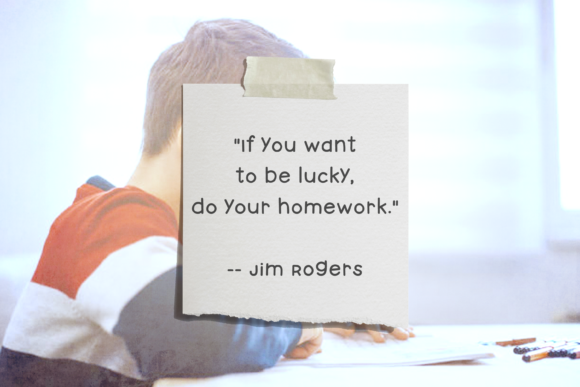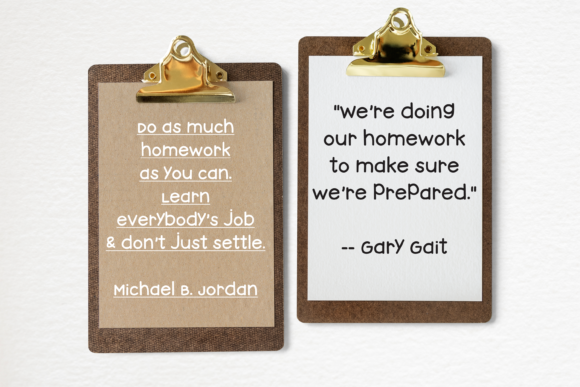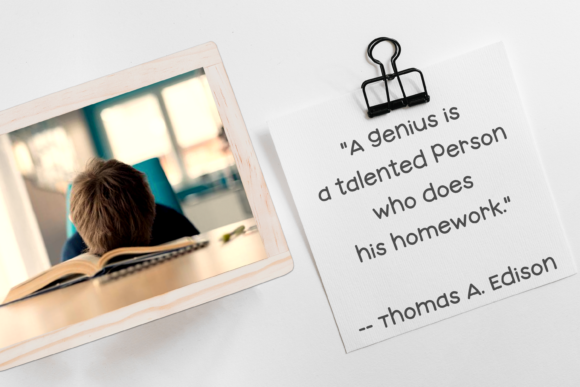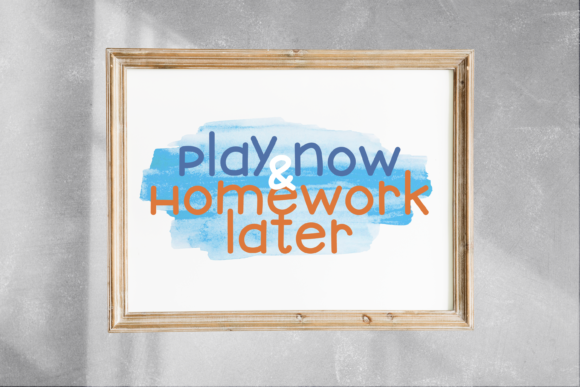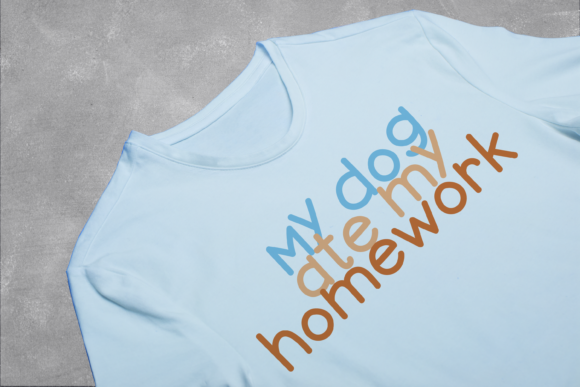
Discover the Delightful World of Friday’s Homework Font
Are you tired of using the same old fonts for your school projects, crafts, and designs? Look no further! Friday’s Homework Font is here to revolutionize the way you create and express yourself. This simple yet adorable handwritten font is perfect for adding a personal touch to your favorite school creations. In this article, we’ll dive into the world of Friday’s Homework Font, exploring its features, benefits, and uses.
What is Friday’s Homework Font?
Friday’s Homework Font is a beautiful, handwritten font designed to bring a sense of playfulness and innocence to your designs. Its neat and tidy style makes it incredibly versatile, suitable for a wide range of projects, from school assignments and crafts to posters, flyers, and more. Whether you’re a student, teacher, designer, or crafter, this font is sure to inspire you.
Key Features of Friday’s Homework Font
- Simple and Cute: Friday’s Homework Font boasts a charming, handwritten style that’s both easy to read and visually appealing.
- Neat and Tidy: The font’s well-spaced letters and clean lines ensure that your text remains clear and legible, even at smaller sizes.
- Handwritten Style: The font’s handwritten style adds a personal touch to your designs, making them stand out from the crowd.
- Versatile: Friday’s Homework Font is suitable for a wide range of projects, from school assignments and crafts to posters, flyers, and more.
Benefits of Using Friday’s Homework Font
So, why choose Friday’s Homework Font for your next project? Here are just a few benefits of using this delightful font:
- Adds a Personal Touch: The font’s handwritten style adds a personal touch to your designs, making them more relatable and engaging.
- Enhances Readability: The font’s neat and tidy style ensures that your text remains clear and legible, even at smaller sizes.
- Increases Creativity: Friday’s Homework Font is sure to inspire your creativity, helping you to come up with fresh and innovative ideas for your designs.
- Perfect for School Projects: The font’s playful and innocent style makes it perfect for school assignments, crafts, and other educational projects.
Uses of Friday’s Homework Font
So, what can you use Friday’s Homework Font for? The possibilities are endless! Here are just a few ideas to get you started:
- School Assignments: Use Friday’s Homework Font to add a personal touch to your school assignments, making them stand out from the crowd.
- Crafts: The font is perfect for craft projects, such as making cards, gift tags, and other DIY creations.
- Posters and Flyers: Use Friday’s Homework Font to create eye-catching posters and flyers for school events, clubs, and activities.
- Design Projects: The font is suitable for a wide range of design projects, from brochures and newsletters to social media graphics and more.
Tips for Using Friday’s Homework Font
Here are a few tips for using Friday’s Homework Font effectively:
- Pair with Other Fonts: Experiment with pairing Friday’s Homework Font with other fonts to create a unique and visually appealing design.
- Use Different Sizes: Use different font sizes to create visual hierarchy and add emphasis to your text.
- Experiment with Colors: Try out different colors to add a pop of color to your design and make it more engaging.
In conclusion, Friday’s Homework Font is a simple yet adorable handwritten font that’s perfect for adding a personal touch to your favorite school creations. Its neat and tidy style makes it incredibly versatile, suitable for a wide range of projects. Whether you’re a student, teacher, designer, or crafter, this font is sure to inspire you. So why not give it a try and see the difference it can make in your designs?